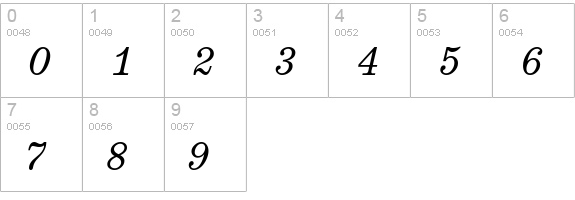
E710-Roman-Italic is a distinctive, italic variant in the E710 typeface family \xE2\x80\x94 well suited to design and typography projects.
The E710-Roman-Italic font is a versatile and elegant typeface that exudes a classic charm with a modern twist. Its sleek and sophisticated design makes it perfect for a wide range of projects, from branding to editorial design. The italicized variant of this font adds a touch of dynamism and flair to any text it graces. What sets the E710-Roman-Italic font apart is not only its timeless appeal but also the fact that it is available for free download at FontsMarket.com. This means that you can easily access and use this high-quality font in your creative endeavors without any cost, making it a valuable asset for designers, typographers, and creatives alike. Whether you're looking to add a touch of sophistication to your designs or simply appreciate the beauty of well-crafted typography, the E710-Roman-Italic font is sure to impress with its seamless blend of tradition and modernity. Download it for free today and elevate your projects with this exquisite typeface.